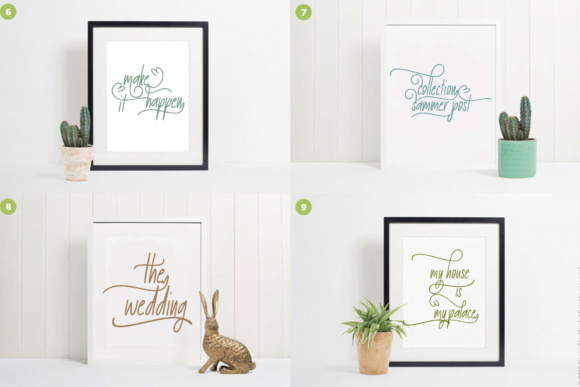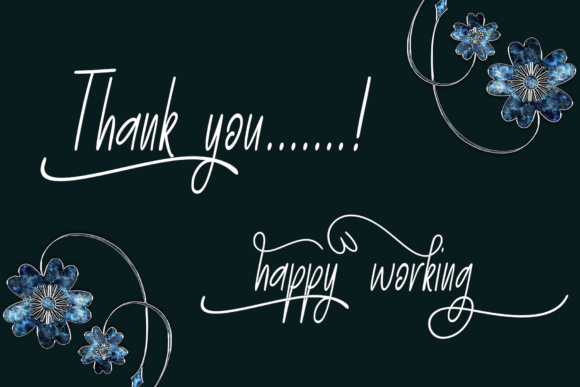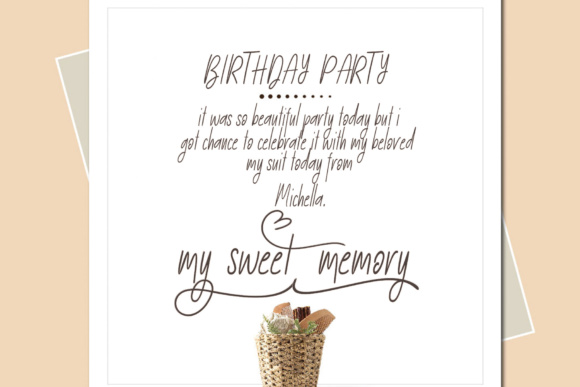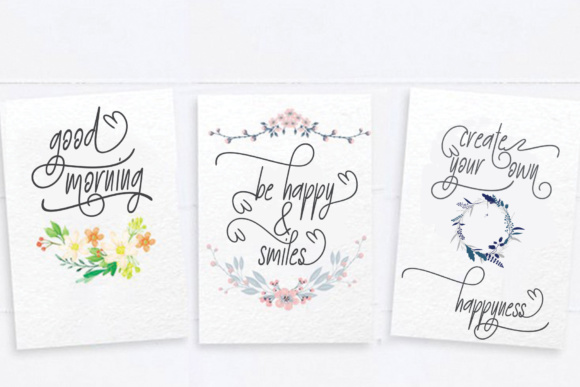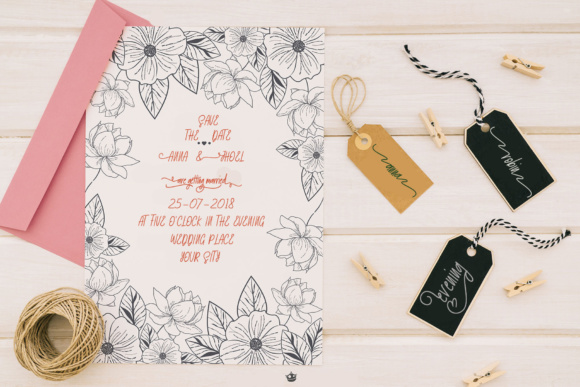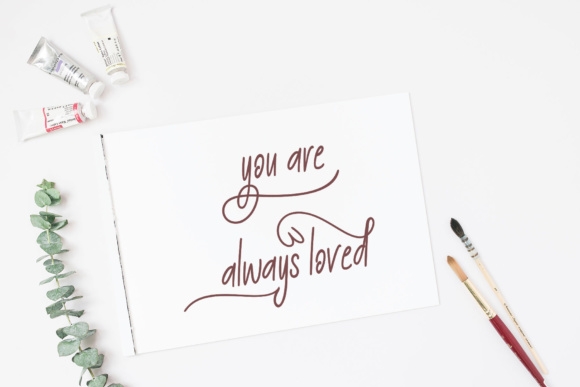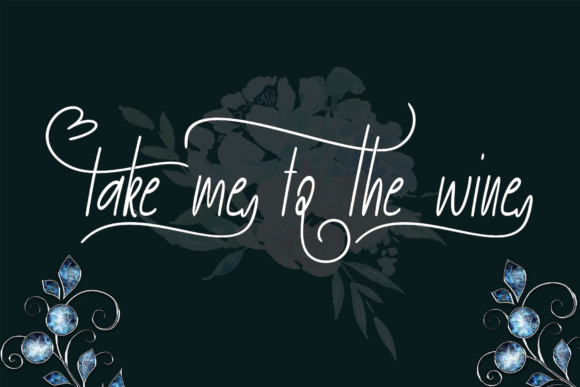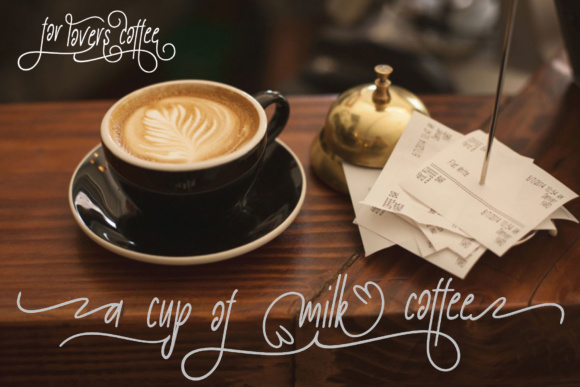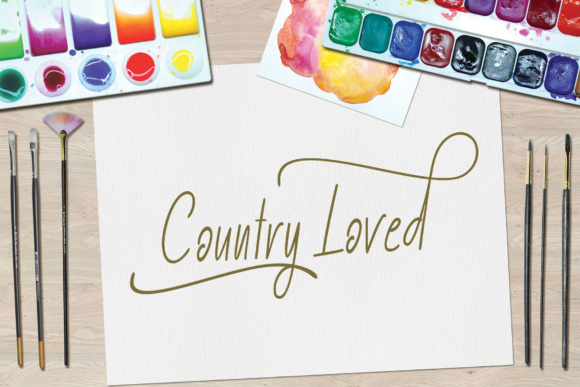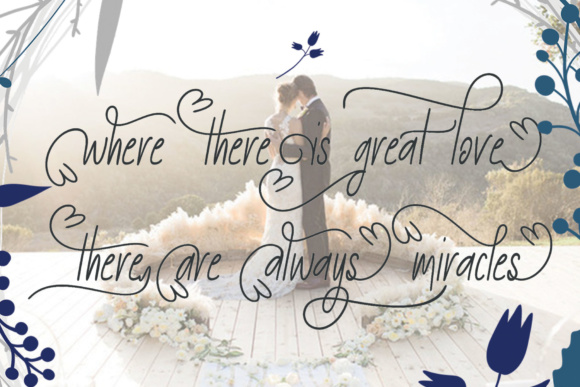
Mathilda Script Font
About Mathilda Script Font
The Mathilda is a modern handwritten font.
This beautiful script font is equipped with perfect lines which will definitely add a touch of elegance to your designs.